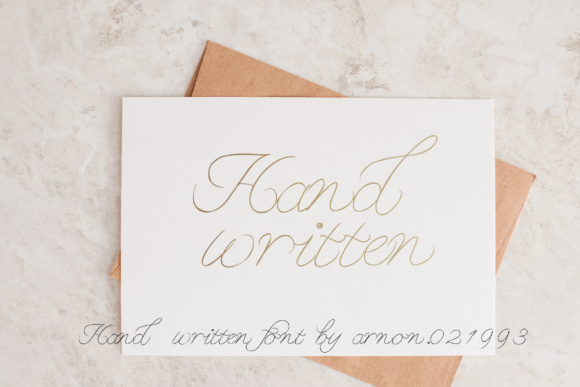
Unleash the artistry within your designs with the exquisite Handwritten font family, a symphony of elegance tailored for your creative endeavors. This mesmerizing script font, meticulously crafted by arnon.021993, captures the essence of handwritten grace, adding a personal touch to every project you undertake.
Immerse yourself in the charm of Handwritten, a font that dances across your designs like a melody, its flowing strokes evoking a sense of timeless beauty. Experience the joy of creating designs that captivate and inspire, whether it's a heartfelt Christmas greeting, an enchanting invitation, or a captivating social media post.
With Handwritten, you hold the power to transform ordinary words into extraordinary expressions. Its graceful curves and delicate details add a touch of sophistication to any project, making it the perfect choice for those seeking a font that exudes both elegance and charm. Let your creativity soar as you explore the endless possibilities that await with Handwritten, the font that breathes life into your designs.
Indulge in the versatility of Handwritten, a font that seamlessly adapts to a myriad of creative projects. Whether you're crafting a heartfelt letter, designing a stunning website, or creating eye-catching marketing materials, Handwritten effortlessly complements your vision, adding a touch of timeless charm. Experience the joy of seamless creativity as Handwritten becomes your go-to font for expressing your unique style.
Embrace the festive spirit of Christmas with Handwritten, the font that captures the magic and wonder of the season. Its elegant strokes and graceful curves lend a touch of enchantment to your Christmas cards, invitations, and social media posts, spreading joy and cheer wherever they go. Let Handwritten be your creative companion as you celebrate the most wonderful time of the year, creating designs that warm hearts and ignite the spirit of Christmas.